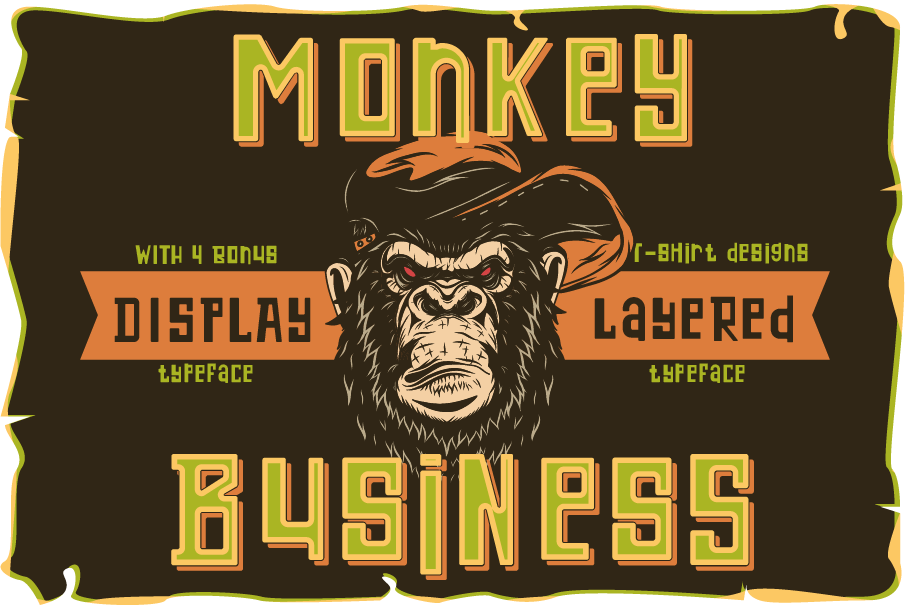
Monkey business font and designs
Introducing my newest font called "Monkey business". It has wide language support of multilingual characters (check out all available characters in previews). Bonus 4 t-shirt designs. This font will look good on any vintage-styled designs like a poster, T-shirt, label, logo, etc.
- A lot of additional symbols, alternative characters, and multilingual support.